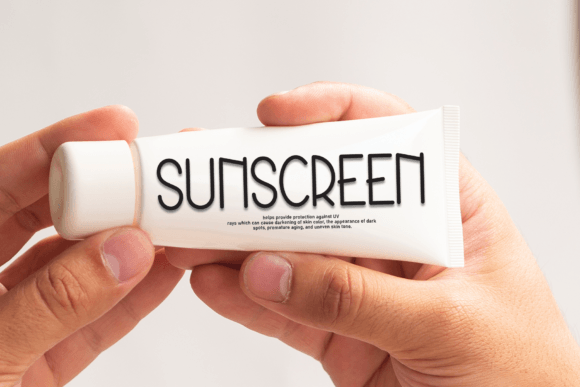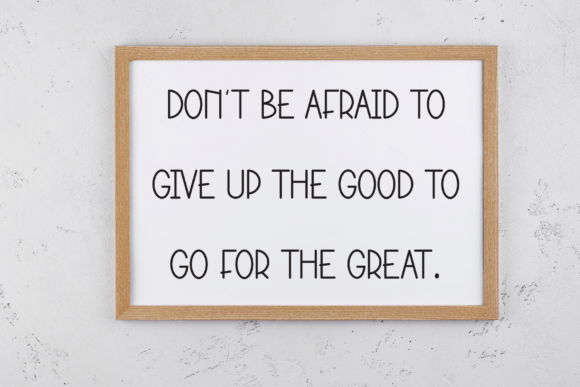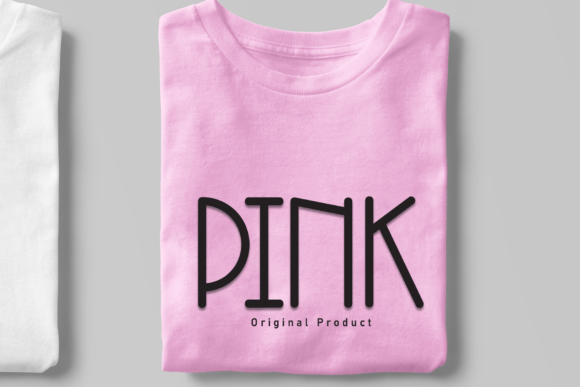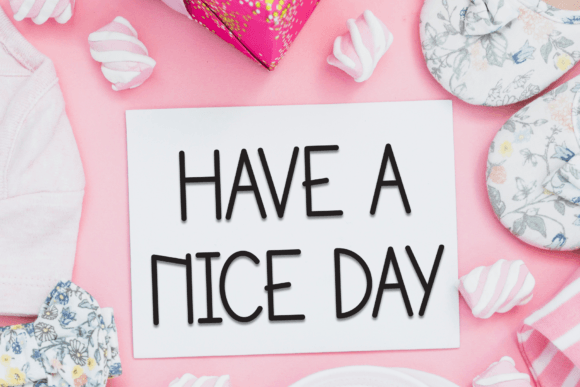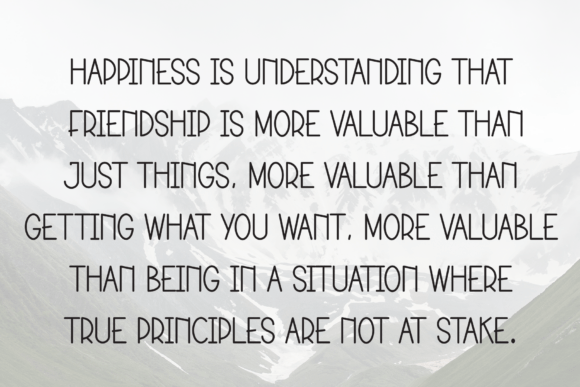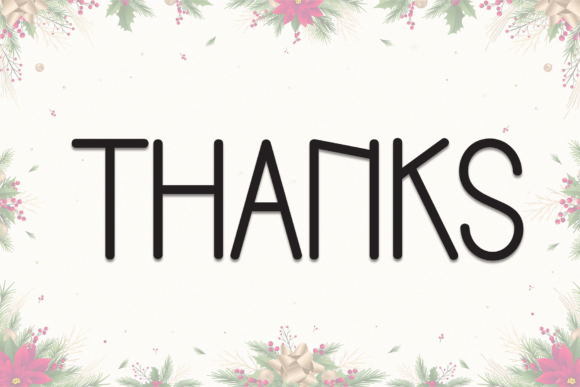
Introducing Flower Christmas Font: The Perfect Addition to Your Holiday Designs
As the holiday season approaches, designers and crafters are on the lookout for the perfect fonts to add a touch of magic to their Christmas creations. If you’re searching for a font that’s both sweet and festive, look no further than Flower Christmas Font. In this article, we’ll dive into the world of Flower Christmas Font, exploring its unique features, and how it can elevate your holiday designs.
What is Flower Christmas Font?
Flower Child is a sweet and friendly handwritten font, carefully crafted to bring a touch of whimsy to your designs. Its natural and unique style makes it incredibly fitting to a large pool of designs, from holiday cards and invitations to festive packaging and decorations. The only limit is your imagination!
Key Features of Flower Christmas Font
- Handwritten style: Flower Christmas Font boasts a beautiful, handwritten style that’s perfect for creating personal and heartfelt designs.
- Unique and natural: The font’s unique and natural style sets it apart from more traditional Christmas fonts, making it ideal for designers looking to create something truly special.
- Versatile: With Flower Christmas Font, the possibilities are endless. Use it for holiday cards, invitations, gift tags, and more.
- Easy to read: Despite its whimsical nature, Flower Christmas Font is incredibly easy to read, making it perfect for use in a variety of designs.
Using Flower Christmas Font in Your Designs
So, how can you use Flower Christmas Font in your designs? Here are a few ideas to get you started:
- Holiday cards and invitations: Add a personal touch to your holiday cards and invitations with Flower Christmas Font.
- Festive packaging: Use Flower Christmas Font to create eye-catching packaging for your holiday gifts or products.
- Christmas decorations: Create beautiful Christmas decorations, such as garlands, banners, and signs, using Flower Christmas Font.
- Social media graphics: Add a touch of festive flair to your social media graphics, such as holiday-themed Facebook posts and Instagram stories.
Tips for Getting the Most Out of Flower Christmas Font
To get the most out of Flower Christmas Font, here are a few tips to keep in mind:
- Experiment with colors: Flower Christmas Font looks beautiful in a variety of colors, so don’t be afraid to experiment and find the perfect hue for your design.
- Mix and match with other fonts: Combine Flower Christmas Font with other fonts to create a unique and eye-catching design.
- Add festive graphics: Add festive graphics, such as holly, snowflakes, or Christmas trees, to really make your design pop.
Flower Christmas Font is a beautiful and versatile font that’s perfect for adding a touch of magic to your holiday designs. With its unique and natural style, it’s incredibly fitting to a large pool of designs, from holiday cards and invitations to festive packaging and decorations. So why not give Flower Christmas Font a try and see the difference it can make in your holiday designs?